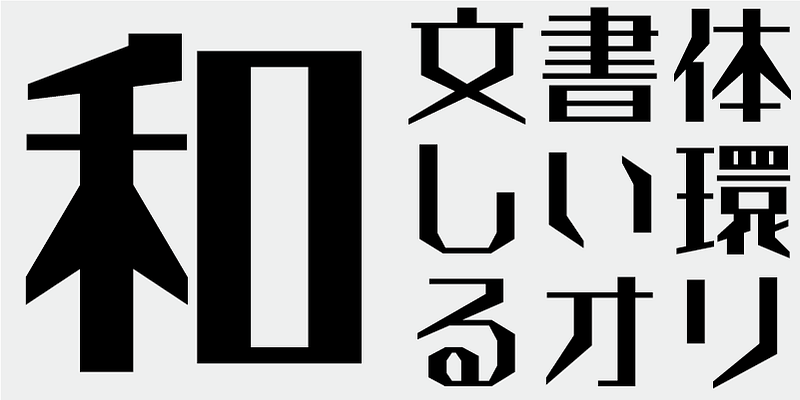
AB Plus Font Free Download is a contemporary sans-serif typeface with clean lines and balanced proportions, designed for optimal readability and versatility. Its modern design makes it a great fit for a wide range of projects, from corporate branding and editorial design to web interfaces and advertising materials.
The AB Plus font has a minimalist aesthetic that maintains clarity even in complex layouts. It is perfect for creating sleek and professional designs that need a simple yet strong typographic presence. The font supports both Latin and Japanese scripts, making it a great option for multilingual and international projects.